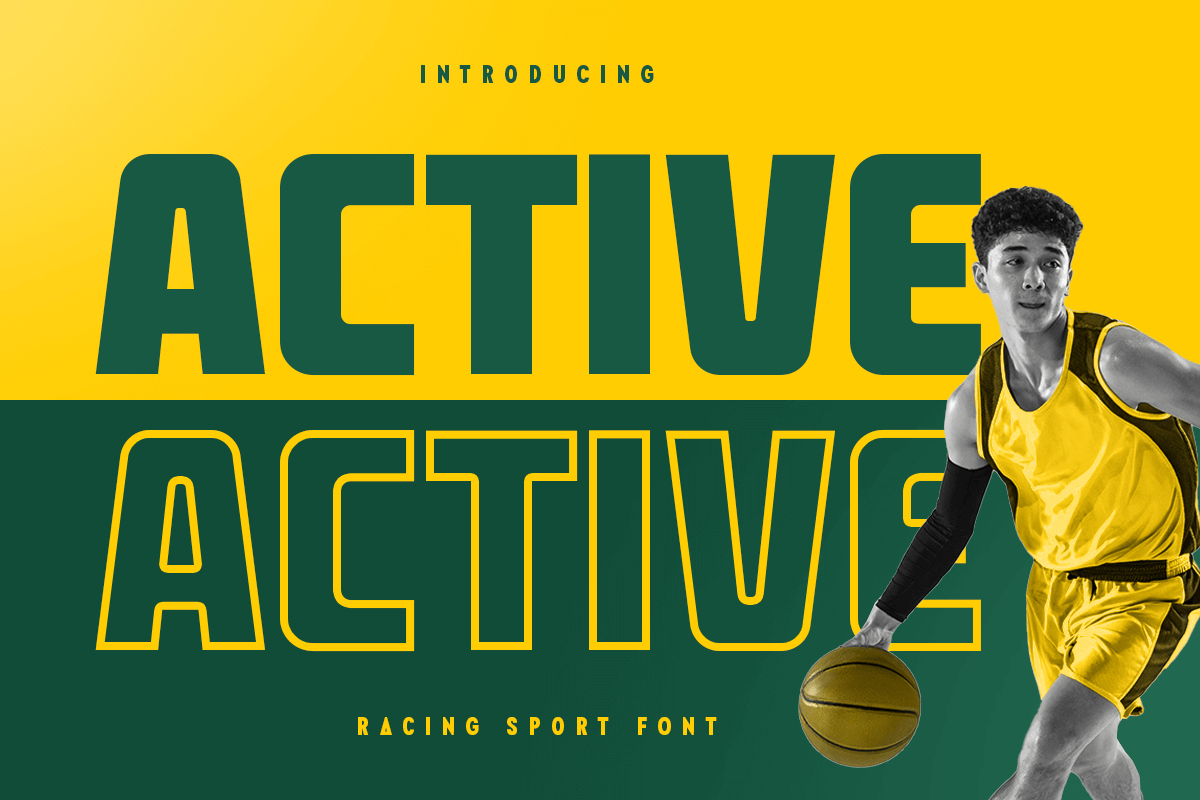
Active
-Racing Sport Font
active outline
Active Racing Sport font are prepared special for logo, action, bold, racing, and sport design needs, that created special for Logo, Title and more stand out typography for sport and action. It’s so perfect to add your style and headline overview for sport, racing, technology, actions, and fighting theme. And specially for this font, we crafted 5 alternates style and ready for bold action style and modern feels so enjoy to create any project that will show your main idea out.